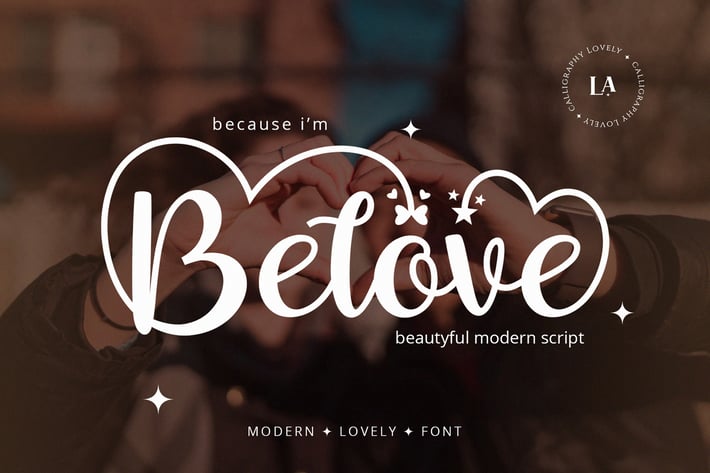
Belove - Script Font
Belove Script Font – Elegant and Romantic Handwritten Typeface
The Belove Script Font is an elegant and romantic handwritten font that brings warmth and charm to any design. Its smooth, flowing strokes create a natural and graceful look. Therefore, it is ideal for wedding invitations, greeting cards, branding, and social media posts that need a personal touch.
Because the font features delicate curves and balanced letter spacing, it is easy to read while maintaining an artistic feel. As a result, your text will appear stylish yet approachable. Moreover, the font’s soft connections between letters add a sense of flow and harmony.
In addition, Belove Script works beautifully in both large and small sizes. It shines in headlines and logos, while also adding personality to body text. This versatility makes it suitable for print and digital projects alike.
Furthermore, the font pairs well with simple sans-serif fonts, helping to create a clean and balanced layout. It enhances designs that aim for a friendly, heartfelt, or elegant vibe without overwhelming the viewer.
To summarize, the Belove Script Font offers:
Smooth and flowing handwritten strokes
Clear and readable letterforms
Balanced spacing for easy reading
Elegant style for romantic designs
Versatile use across print and digital
Overall, this font is a perfect choice for anyone wanting to add elegance and warmth to their work. It helps make designs that feel personal and stylish at the same time.
The Belove Script Font is an elegant and romantic handwritten font that brings warmth and charm to any design. Its smooth, flowing strokes create a natural and graceful look. Therefore, it is ideal for wedding invitations, greeting cards, branding, and social media posts that need a personal touch.
Because the font features delicate curves and balanced letter spacing, it is easy to read while maintaining an artistic feel. As a result, your text will appear stylish yet approachable. Moreover, the font’s soft connections between letters add a sense of flow and harmony.
In addition, Belove Script works beautifully in both large and small sizes. It shines in headlines and logos, while also adding personality to body text. This versatility makes it suitable for print and digital projects alike.
Furthermore, the font pairs well with simple sans-serif fonts, helping to create a clean and balanced layout. It enhances designs that aim for a friendly, heartfelt, or elegant vibe without overwhelming the viewer.
To summarize, the Belove Script Font offers:
Smooth and flowing handwritten strokes
Clear and readable letterforms
Balanced spacing for easy reading
Elegant style for romantic designs
Versatile use across print and digital
Overall, this font is a perfect choice for anyone wanting to add elegance and warmth to their work. It helps make designs that feel personal and stylish at the same time.